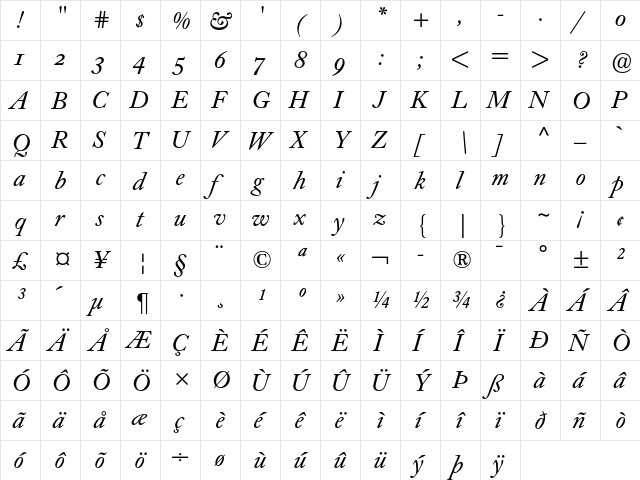
Caslon Book BE Italic OsF Font Preview
Caslon Book BE Italic OsF
Design Context for Caslon Book BE Typeface
Caslon Book BE is a composed and adaptable typeface that performs quietly and consistently across a wide range of design contexts. The slanted form adds forward momentum and visual energy.
Pro Tip: Try Caslon Book BE for annotation and caption copy alongside an upright companion — the contrast in angle creates a dynamic but ordered typographic system.